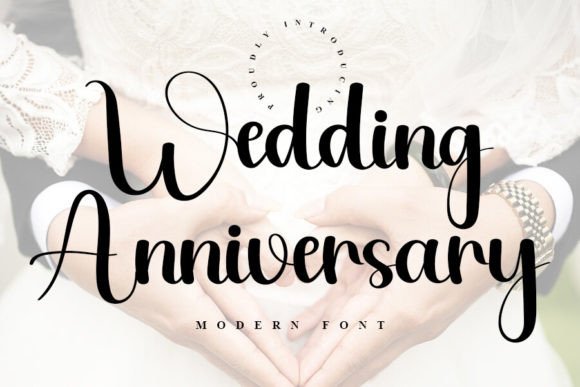
Introducing Wedding Anniversary Font, the epitome of elegance and romance! Crafted with utmost care and attention to detail, this script font is the perfect choice for anyone seeking to add a touch of sophistication to their designs. Whether you're creating YouTube banners, cover logos, wedding invitations, ID cards, flyers, or indulging in your creative crafts, Wedding Anniversary Font will take your creations to new heights.
Designed by the talented ABBAsalam, this font exudes a fresh and beautiful vibe that captivates hearts. Its seamless curves and graceful strokes evoke emotions of love, tenderness, and passion, making it an ideal companion for all your love letter projects. Say goodbye to ordinary and mundane fonts, as Wedding Anniversary Font brings a unique and enchanting charm to your work.
But it doesn't end there. This font is not just visually stunning; it also possesses the power to elevate your business to unprecedented levels. With Wedding Anniversary Font, your brand will effortlessly stand out from the crowd, leaving a lasting impression on your target audience. Let the magic of this font cast a spell on your customers, turning them into loyal fans who can't resist your captivating designs.
Immerse yourself in the world of endless possibilities as you unlock the true potential of Wedding Anniversary Font. Its versatility knows no bounds, allowing you to effortlessly explore various design styles and applications. From romantic and dreamy to bold and impactful, this font adapts flawlessly to your creative vision, breathing life into your projects like never before.